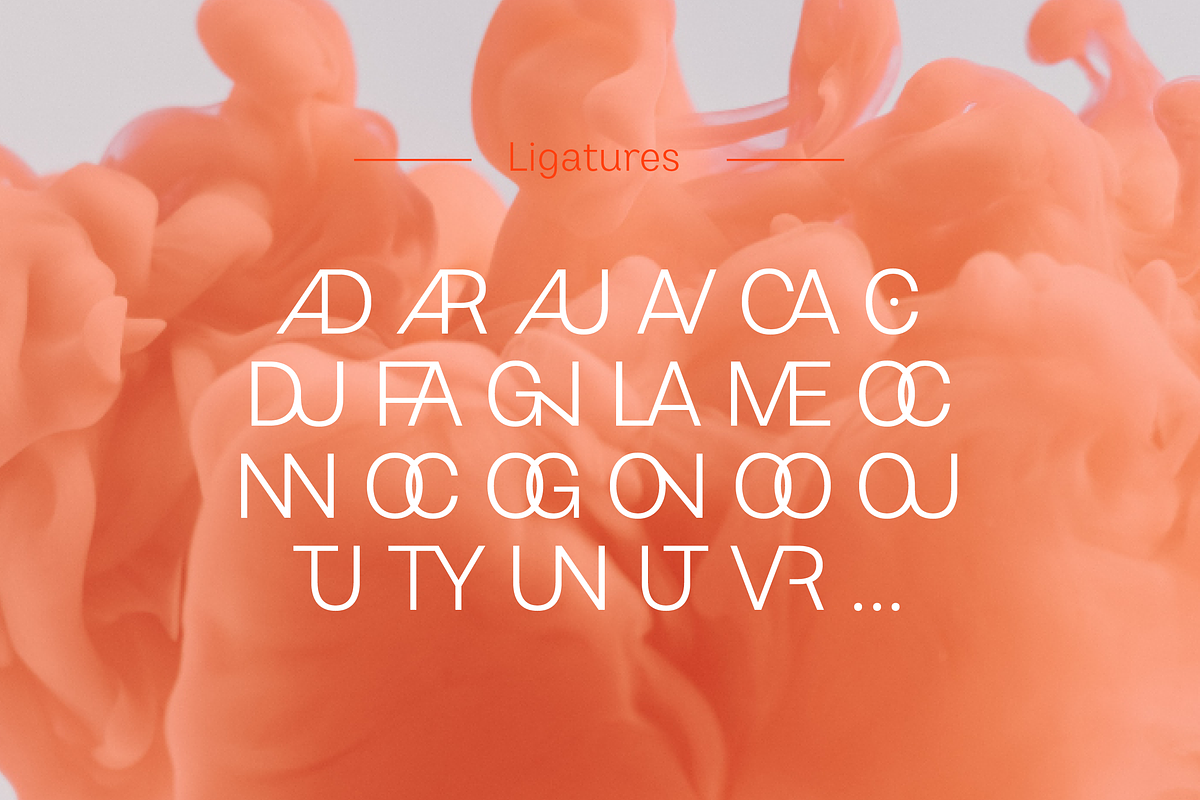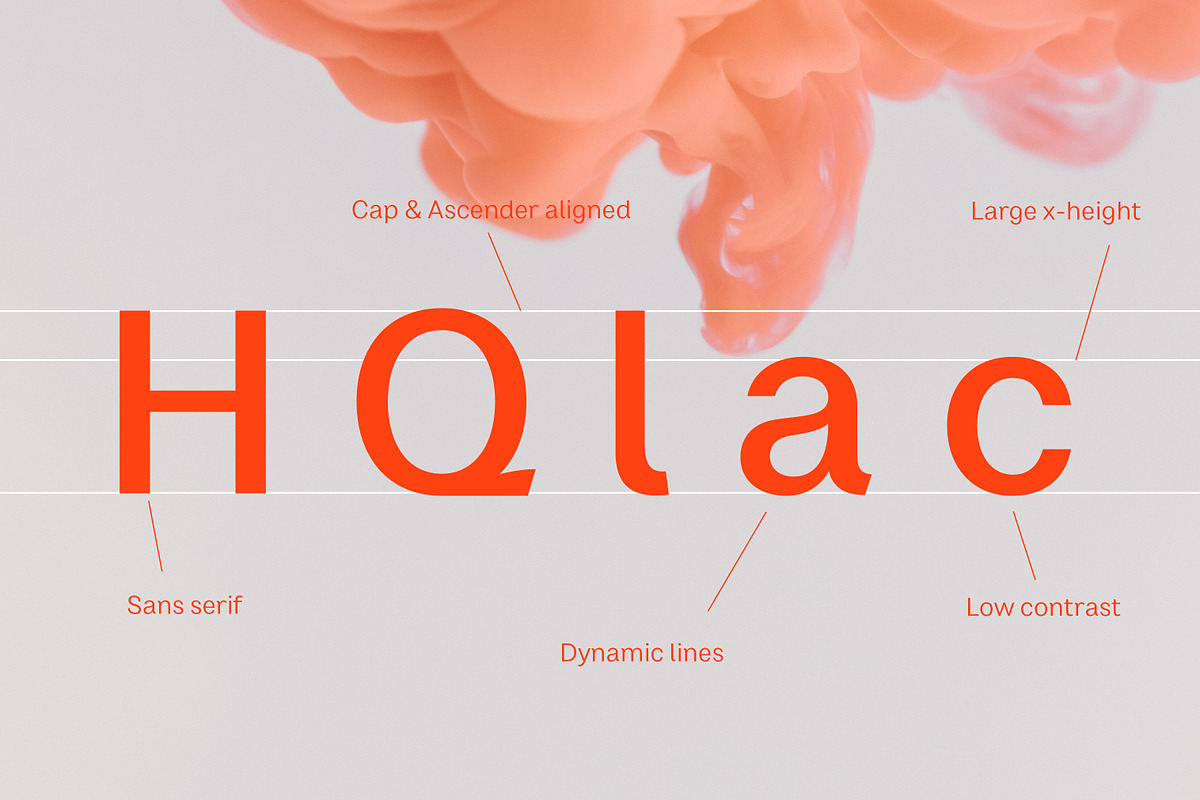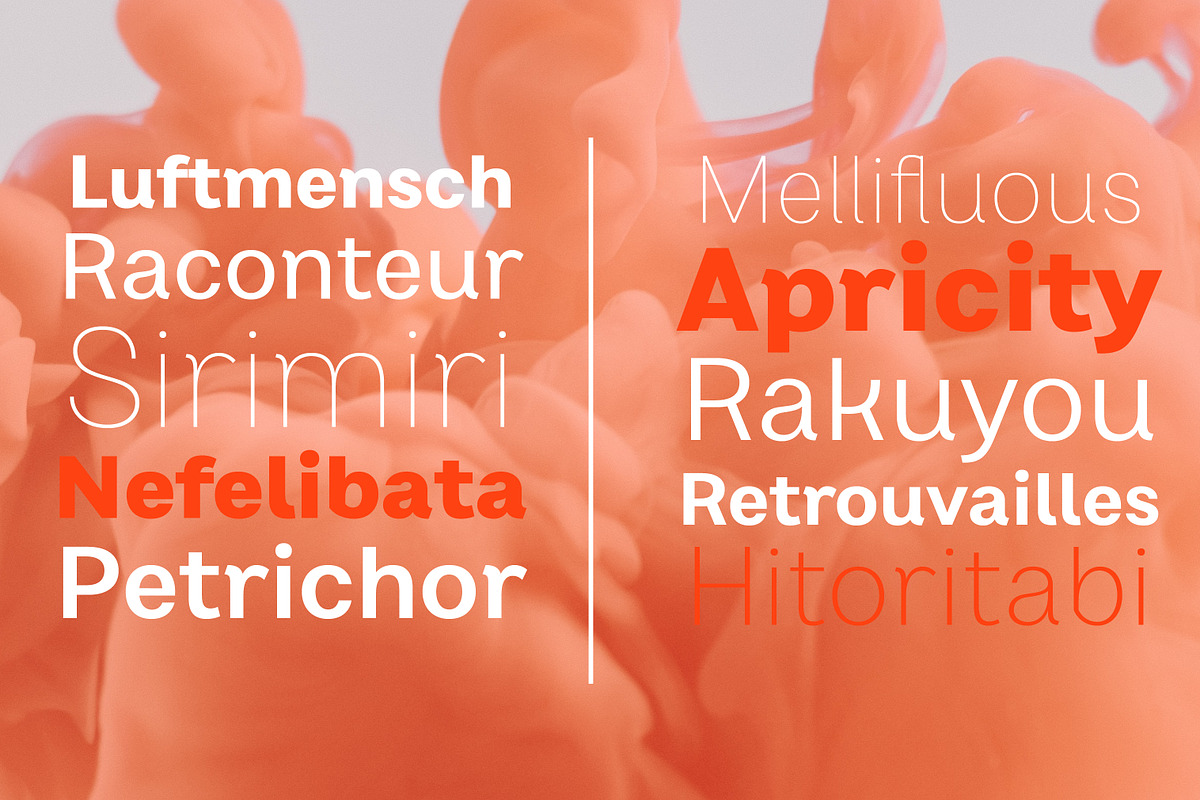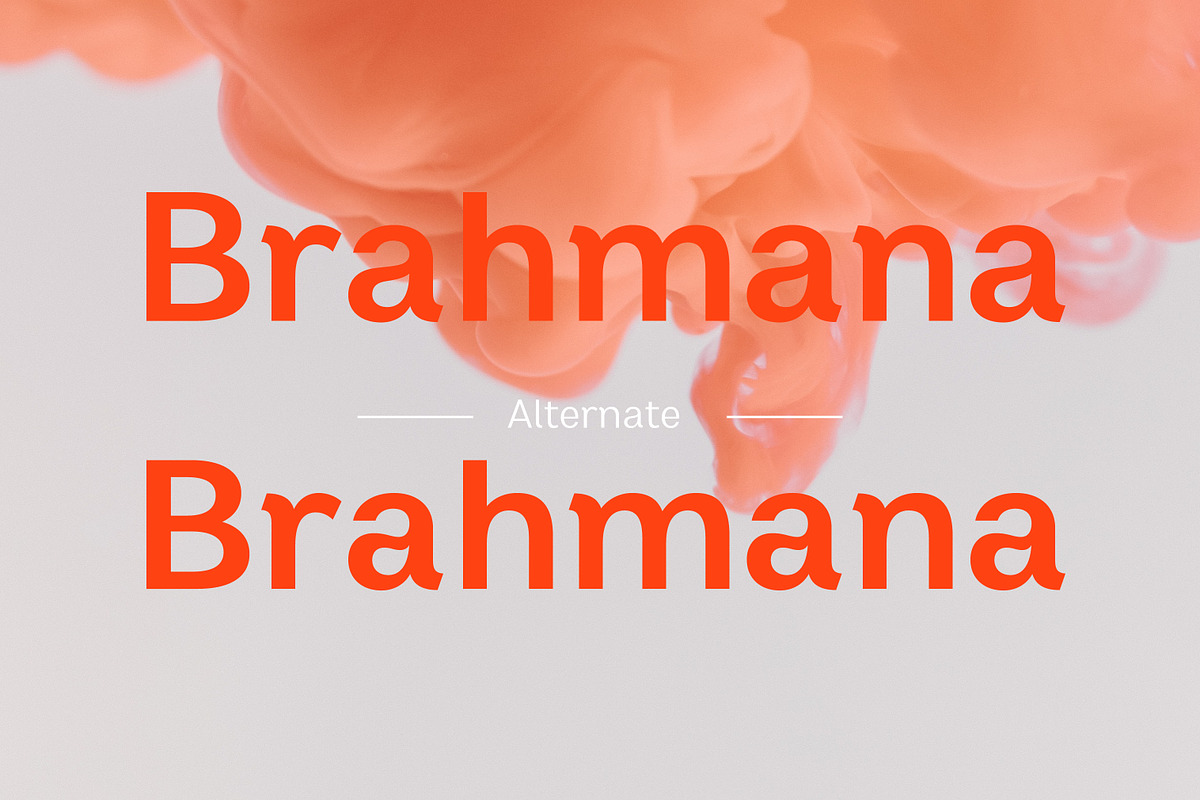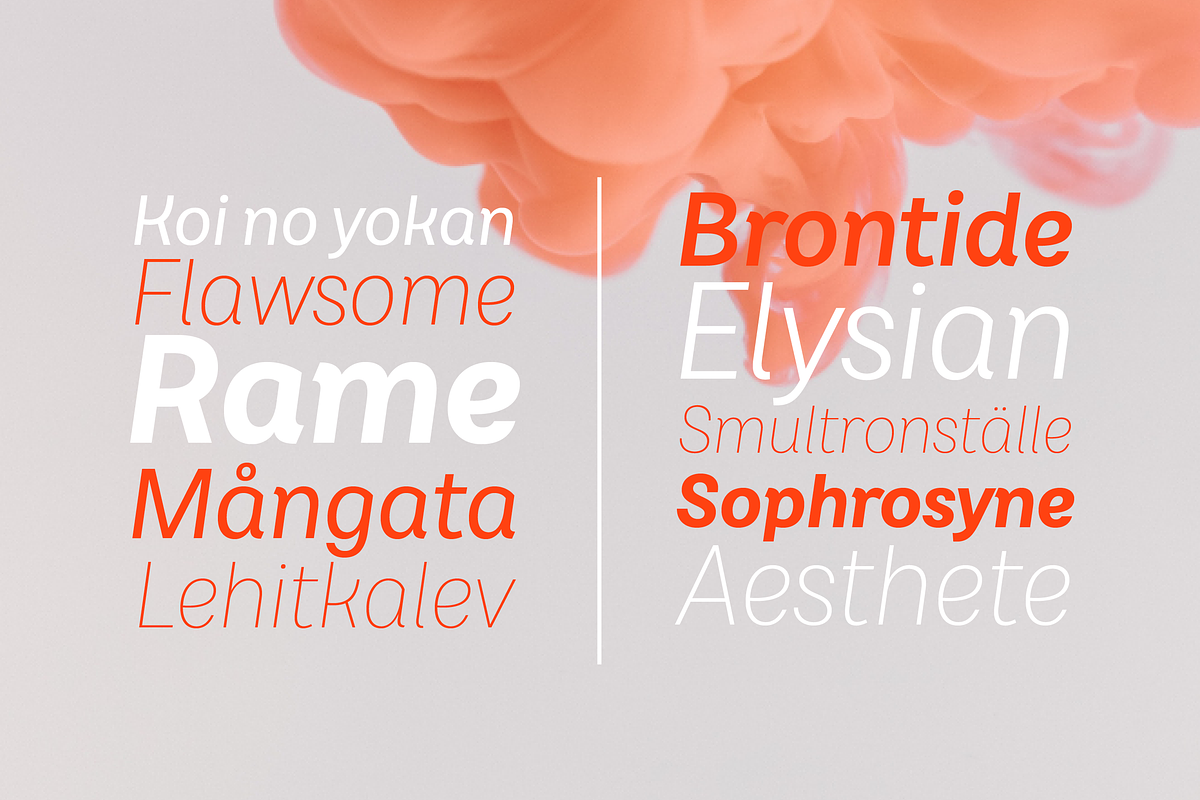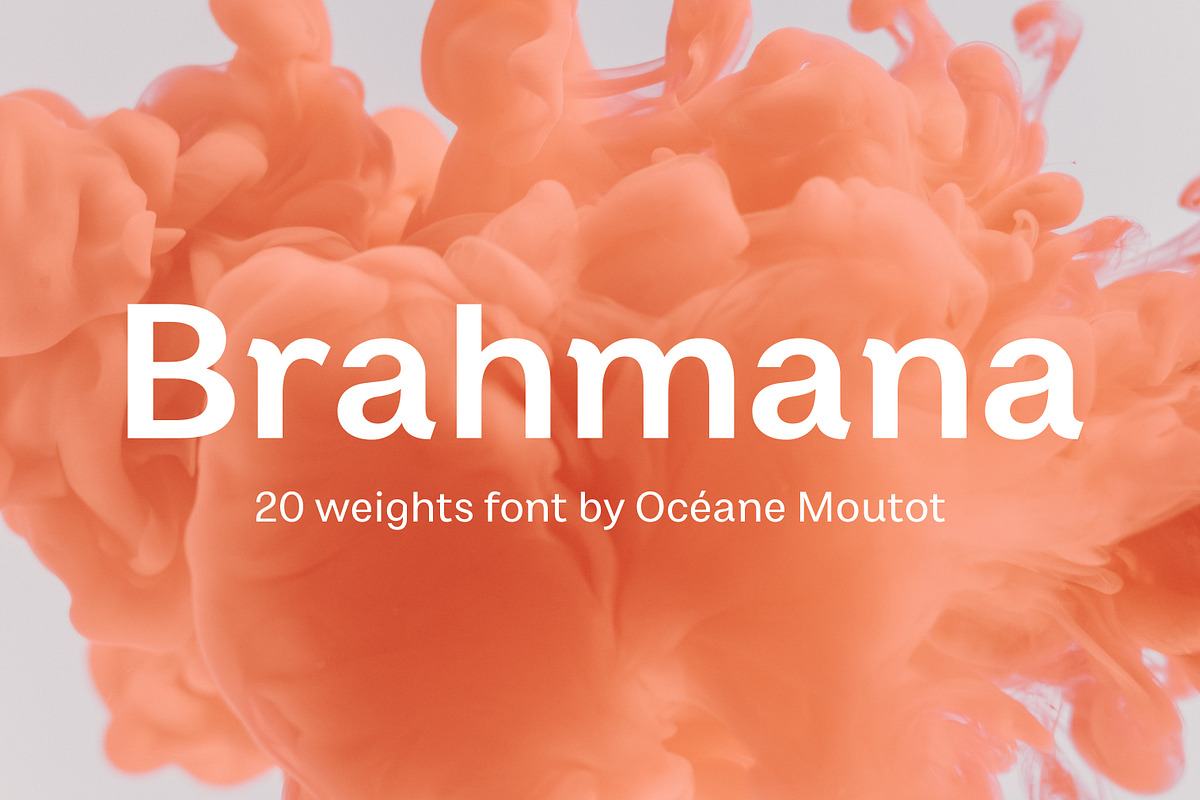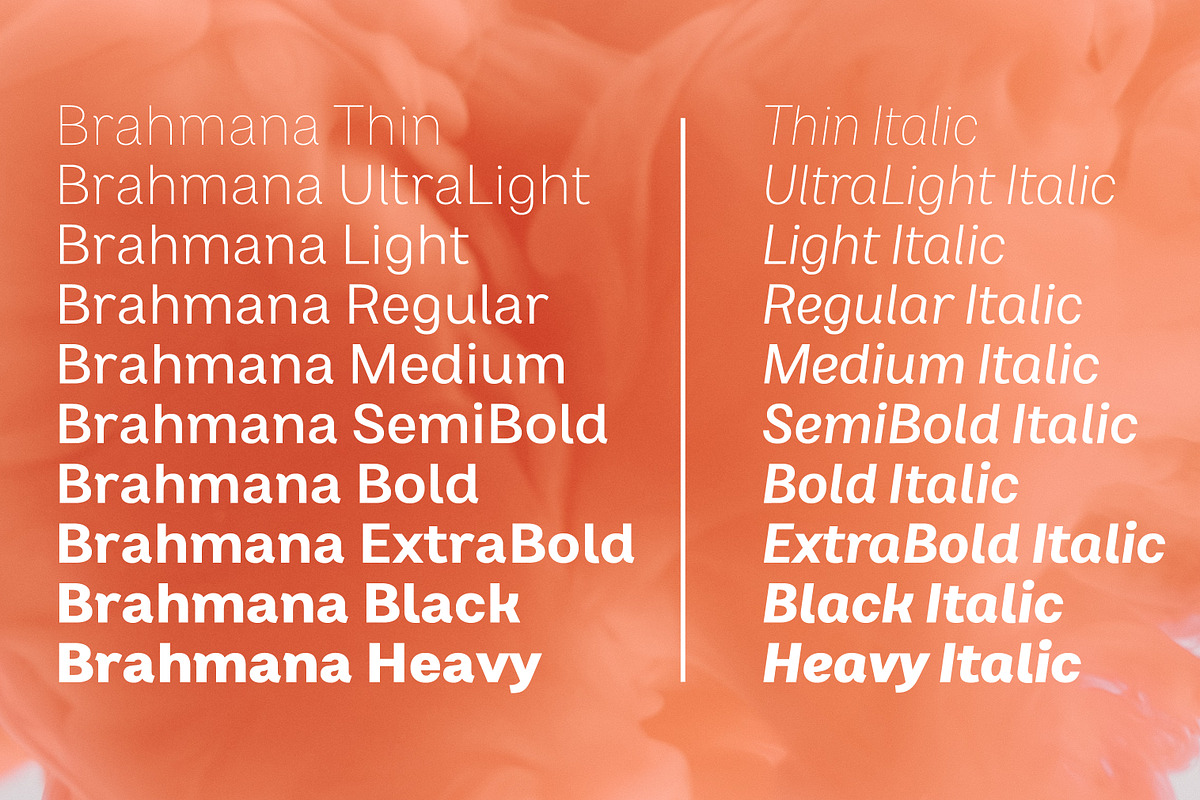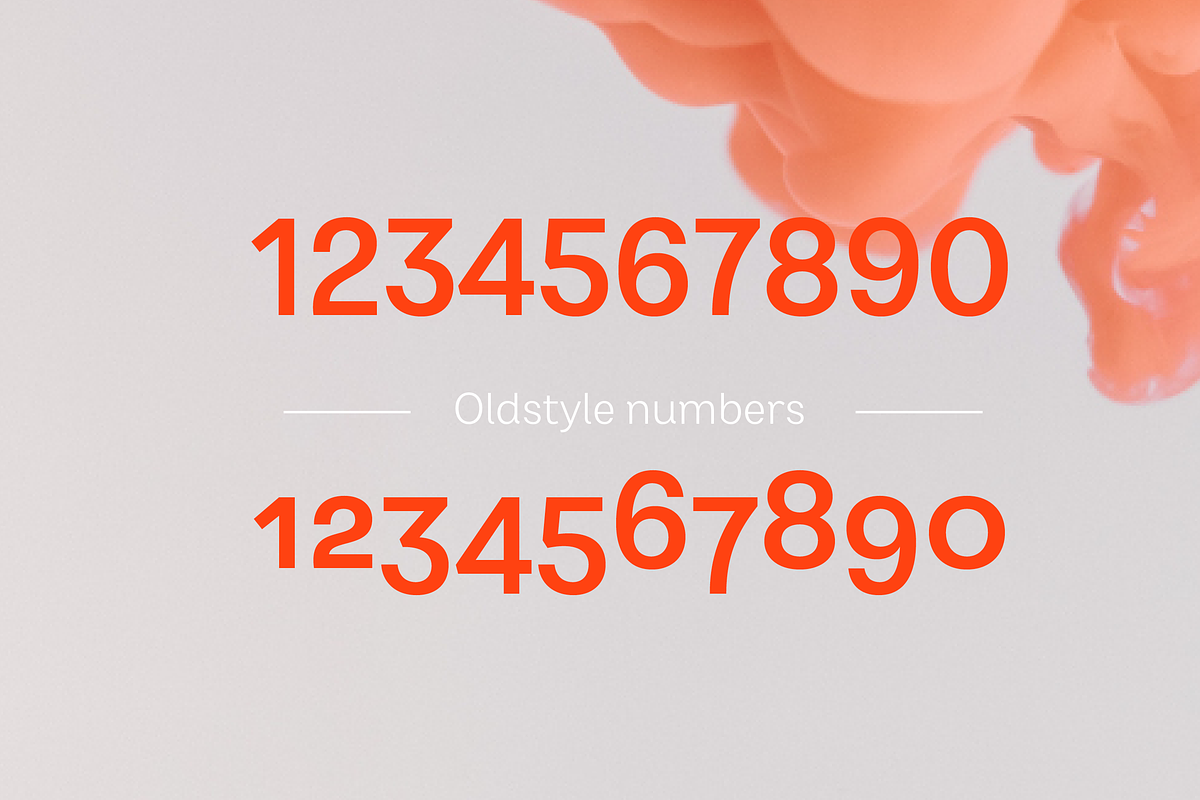
Brahmana
Brahmana is a contemporary sans serif, identified by its playfulness and original details. Its large x-height offers this friendly lineal a variety for use, from titles, edition of texts, branding, magazines and so on. Its large variety of glyphs, including accents, old-style numbers and ligatures will give uniqueness to your designs.
Brahmana is available in 20 styles, from thin to heavy in roman and italic.